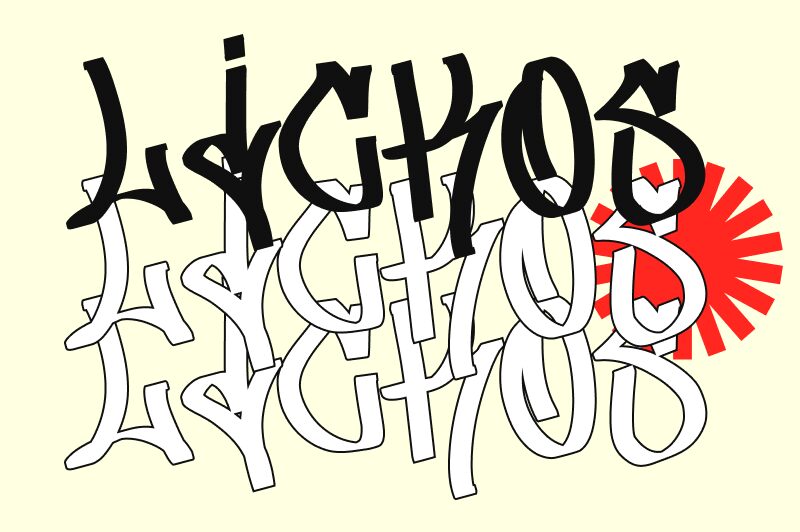
Lickos Graffiti Outline font, part of the Lickos Graffiti family designed by Fitrah Type, embodies a vibrant essence of urban artistry. With its playful strokes and bold outline, this font captures the spirit of graffiti culture, making a striking visual impact. Its light composition adds an airy feel, while the exaggerated curves create a dynamic rhythm that dances across any design.
Ideal for youth-oriented projects, streetwear branding, or event promotions, Lickos Graffiti Outline effortlessly infuses energy and creativity into various contexts. Whether used in posters or digital graphics, it stands out as a captivating choice that invites engagement and evokes a sense of spontaneity and fun. This font isn’t just about letters; it's about making a statement.